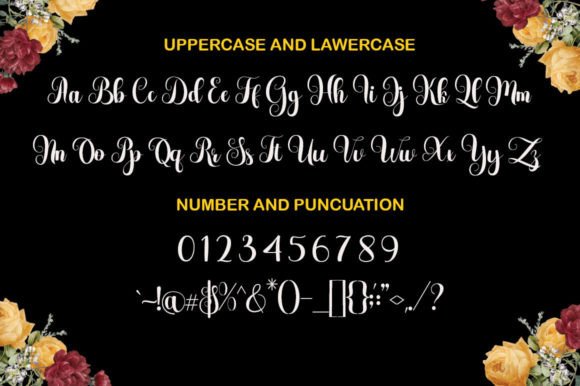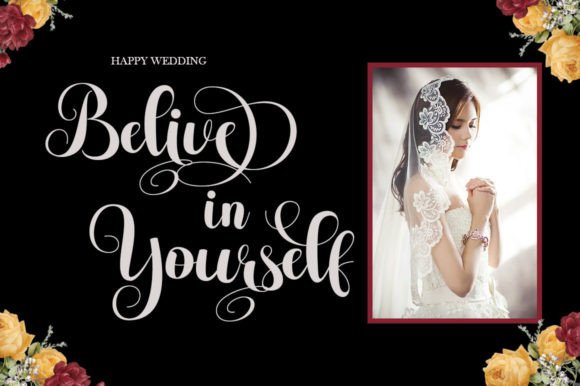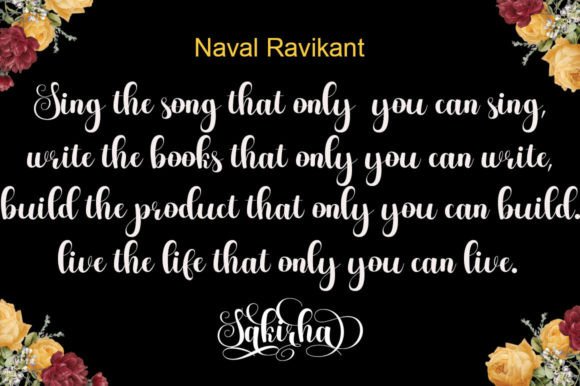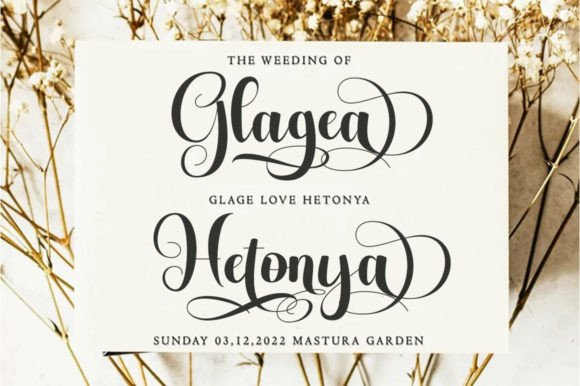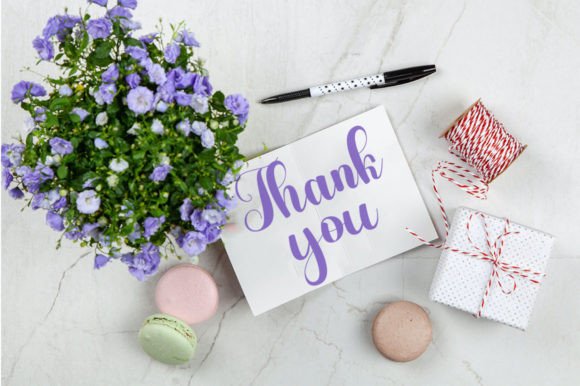
Introduction to Sakirha Font
Sakirha is a flowing handwritten font, described by an elegant touch, perfect for your favorite projects.
Key Features of Sakirha Font